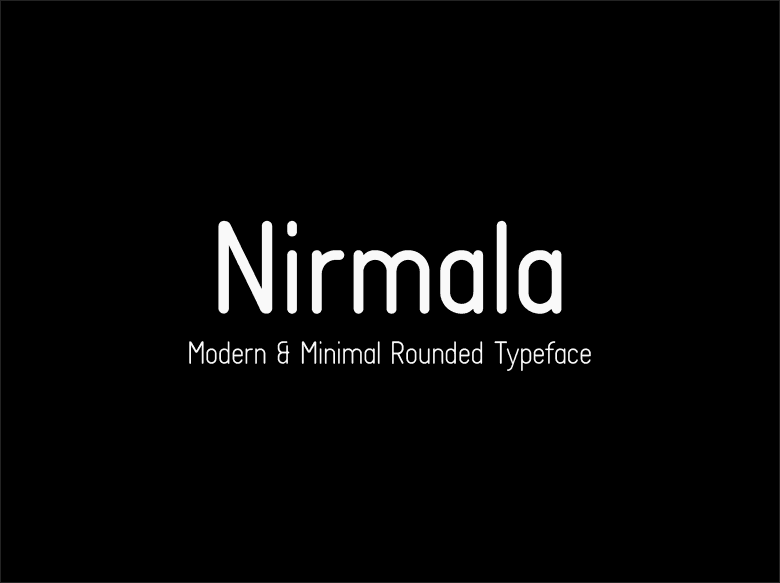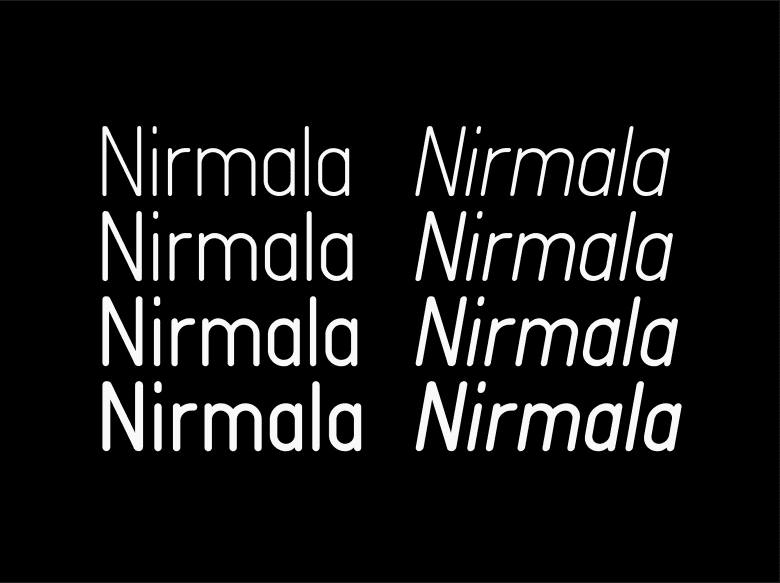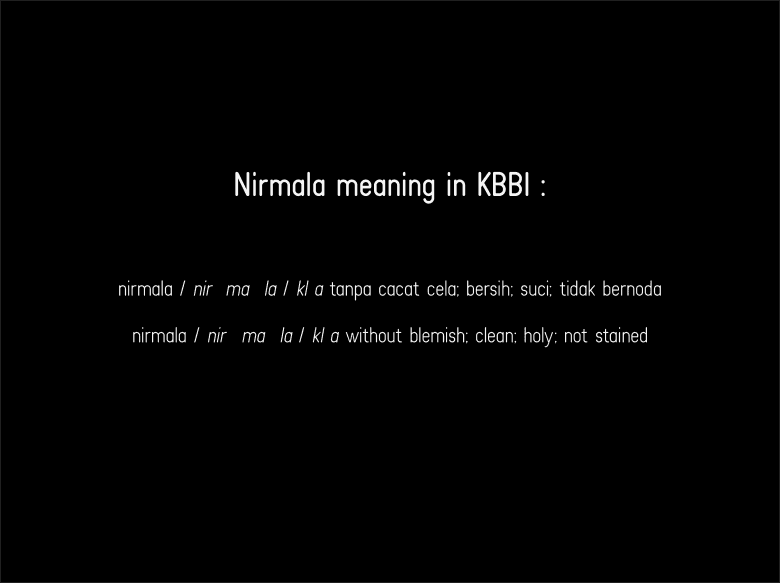
Nirmala is an ideal minimalist sleek and neat sans serif font that exudes simplicity, versatility and creativity. Use it in all sorts of projects to bring out its best qualities! You will quickly see its effect!